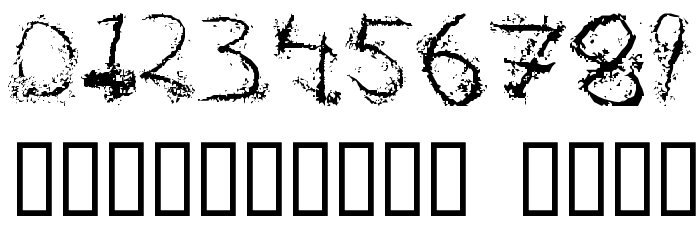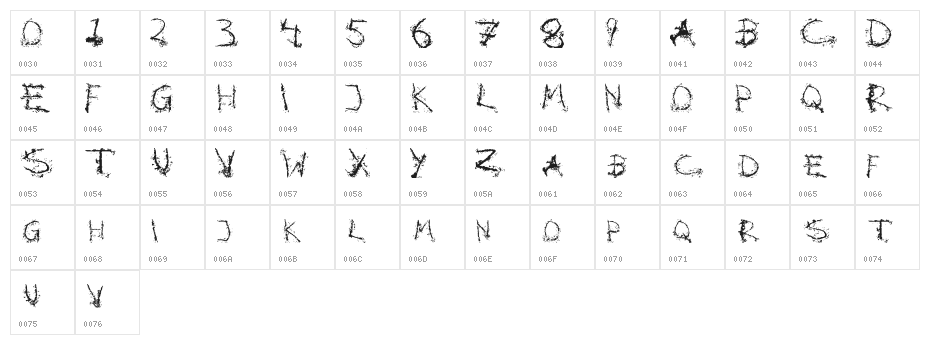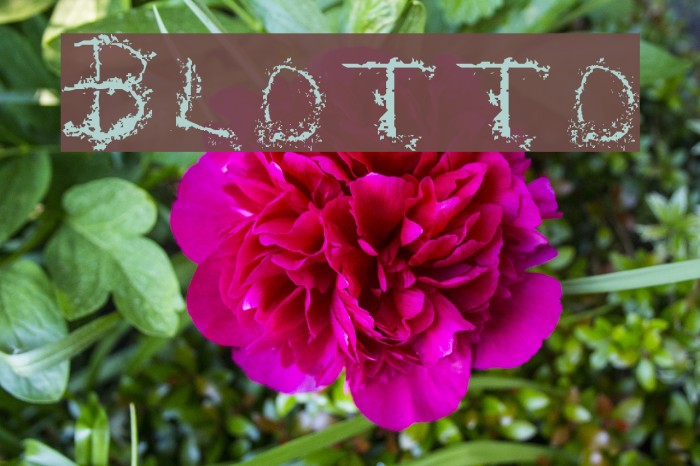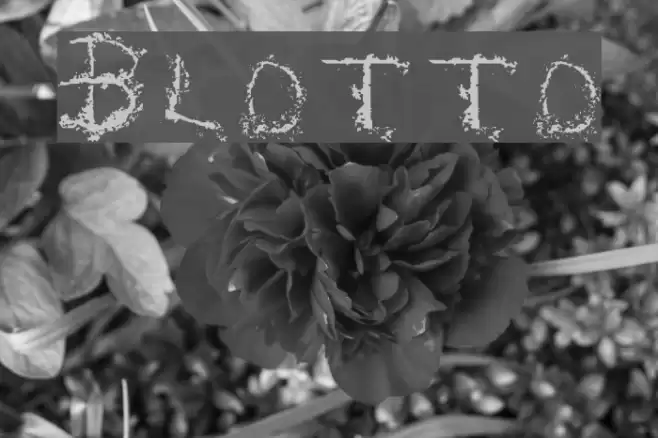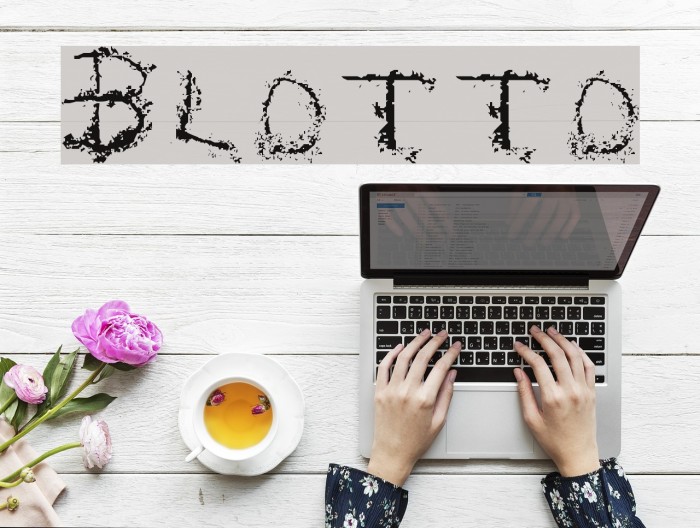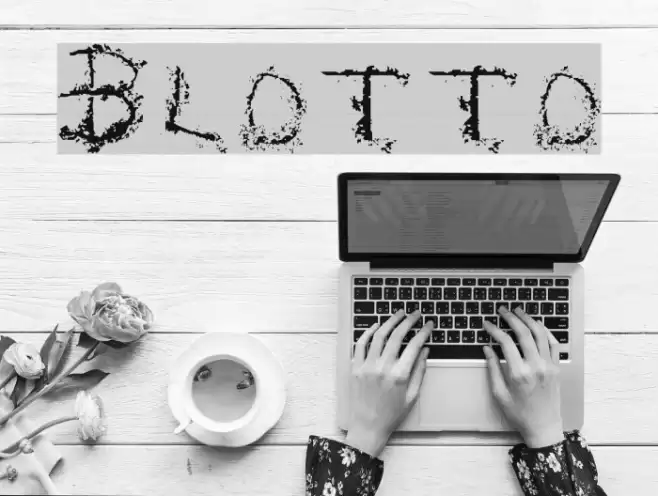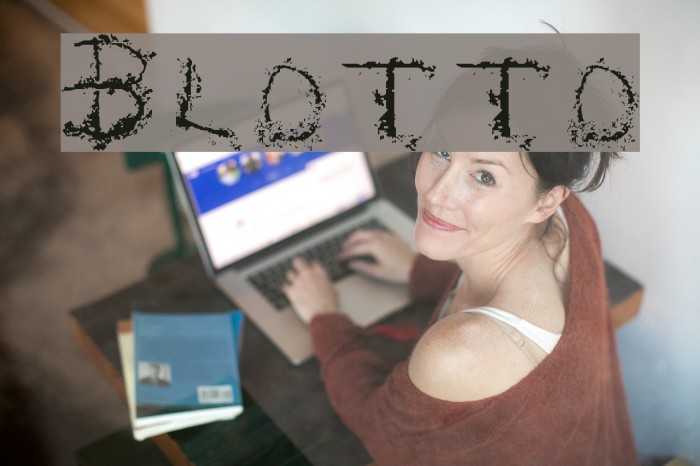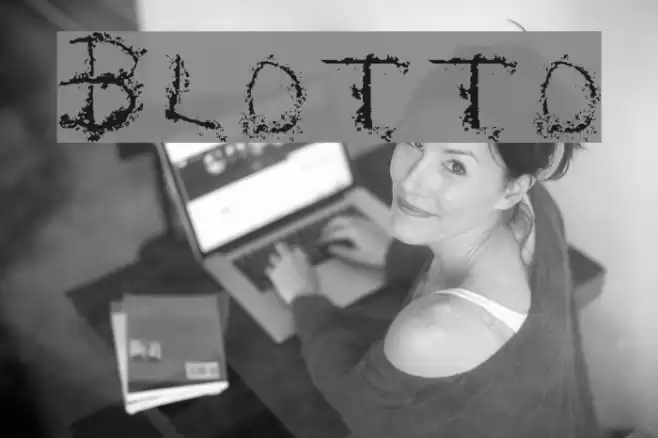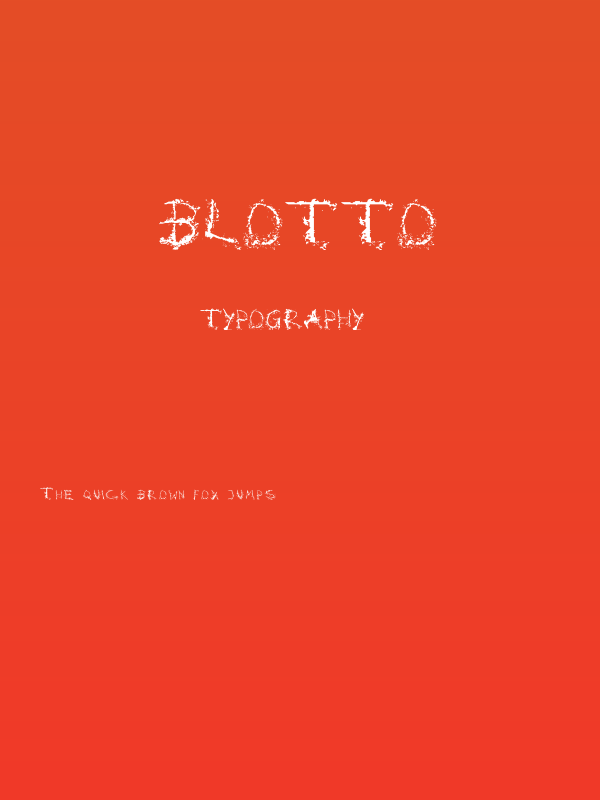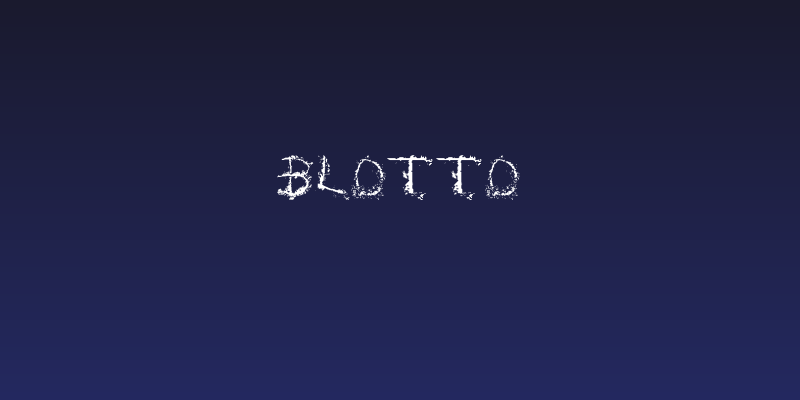
Blotto Font
Blotto Description
This font exhibits a distressed, grunge style with a rough, textured appearance that mimics the look of worn or eroded surfaces. The characters are irregular and uneven, giving them a hand-drawn, organic feel. The uppercase and lowercase letters maintain a consistent style, with jagged edges and a slightly chaotic structure. The numerals and special characters follow the same aesthetic, ensuring a cohesive look across all glyphs. This font's unique, edgy design makes it stand out, ideal for projects that require a bold, unconventional typeface.
| Overall Style | Grunge, Distressed |
| Use Case | Headlines, Logos, Artistic projects |
| Proposed Projects | Ideal for album covers, posters, graffiti art, and edgy branding projects. |